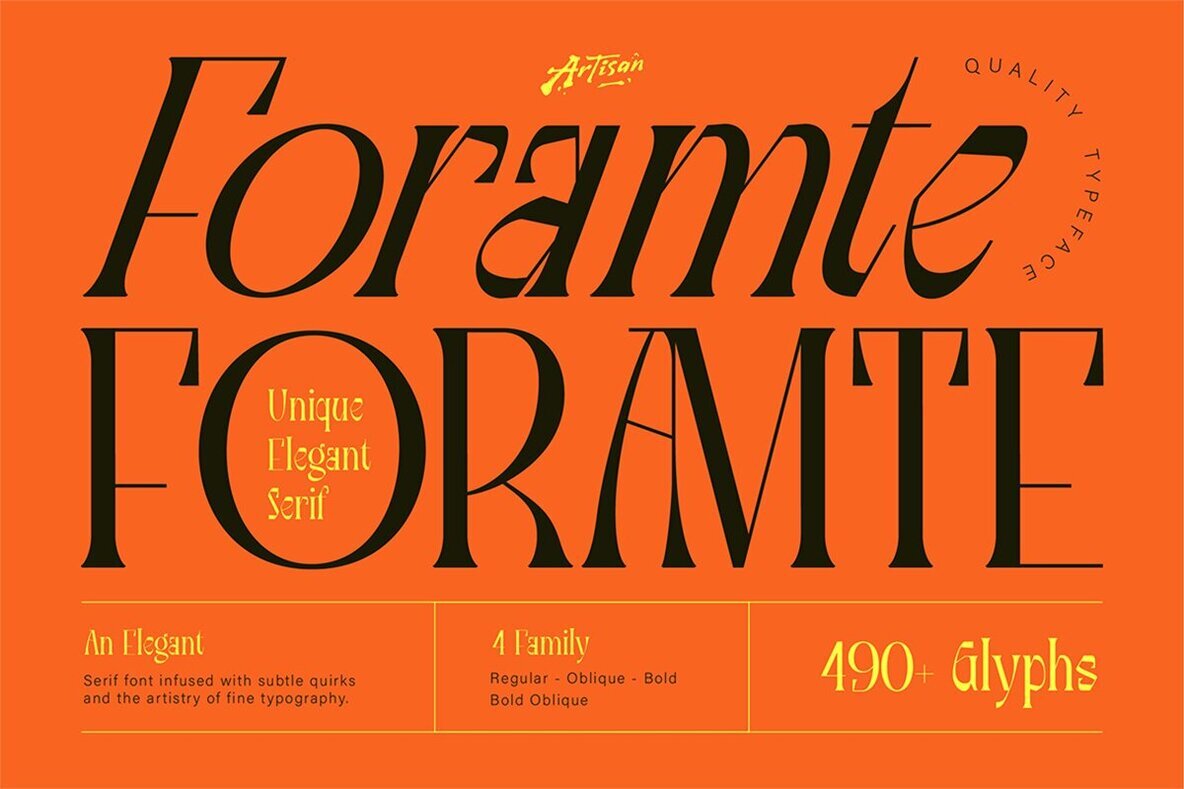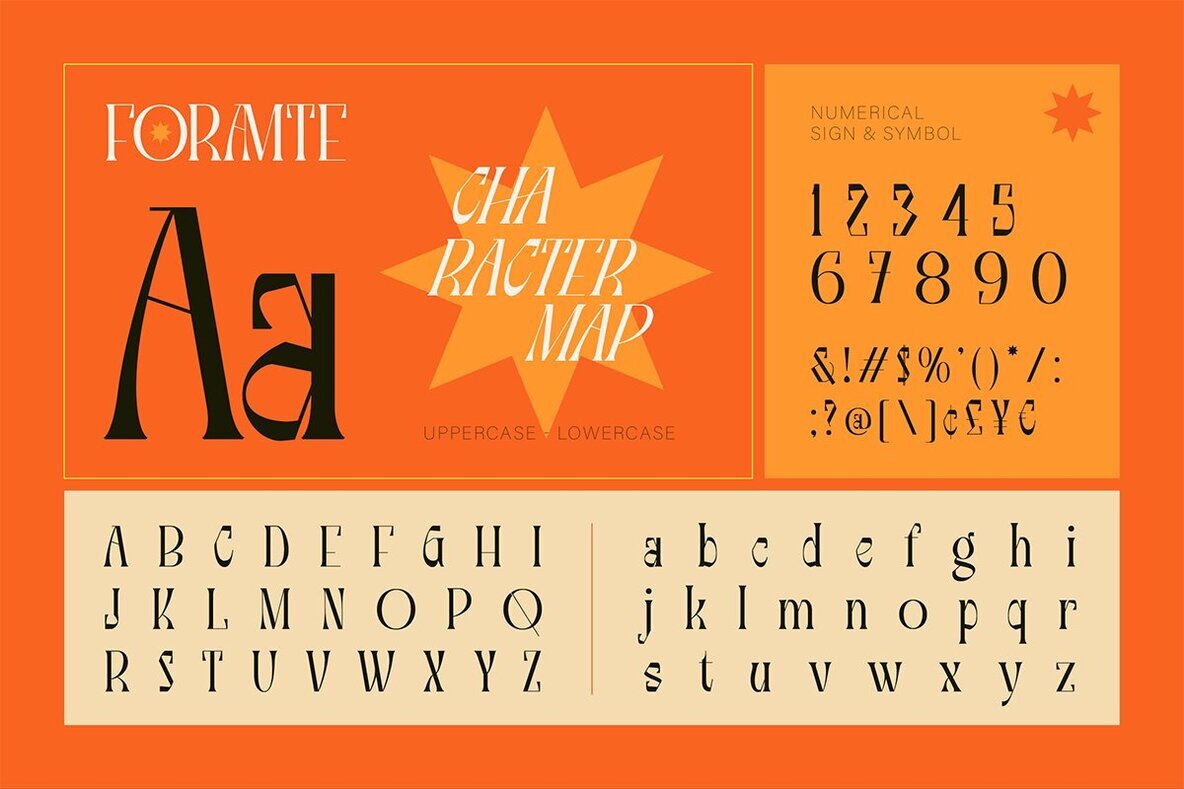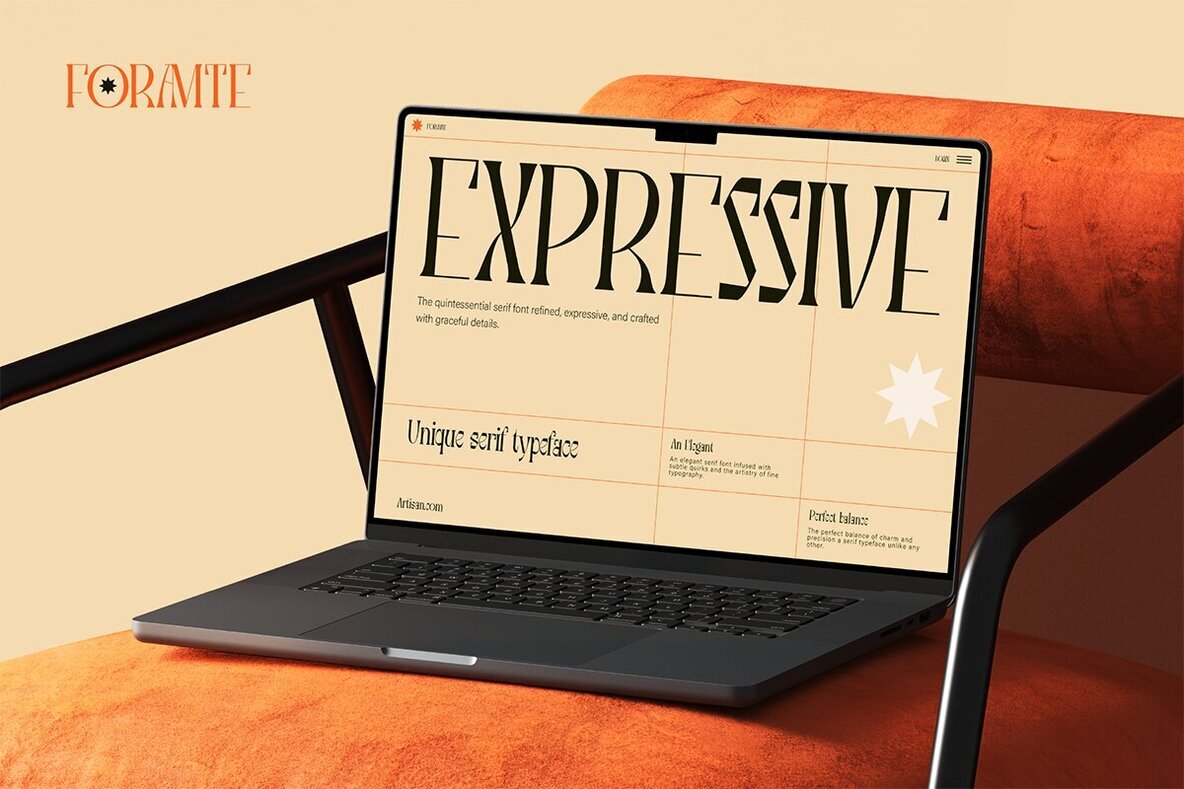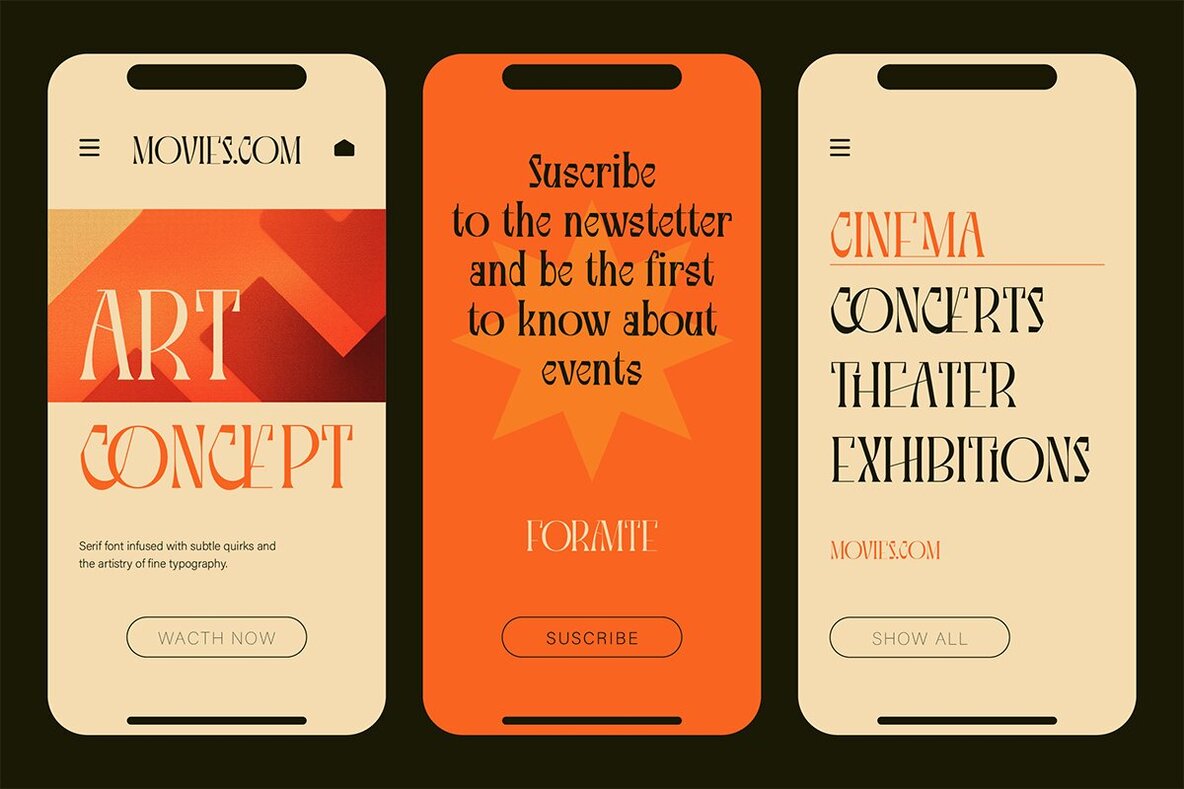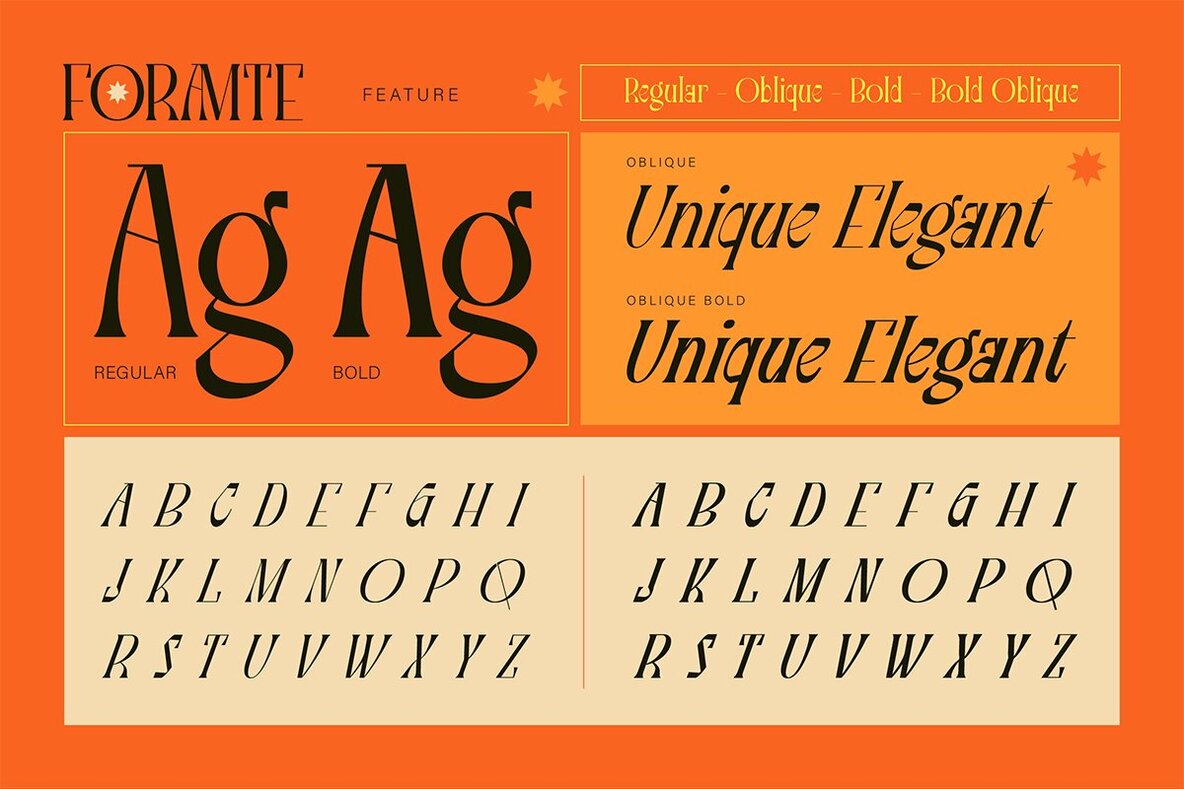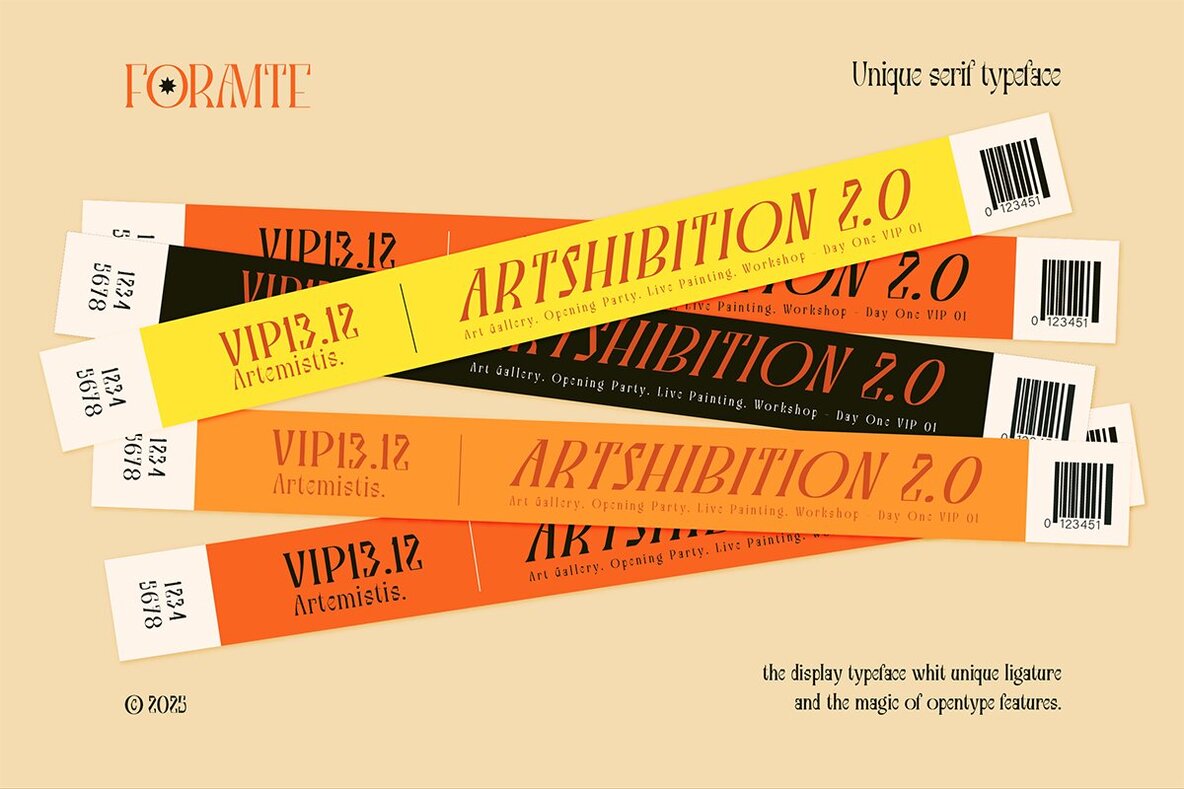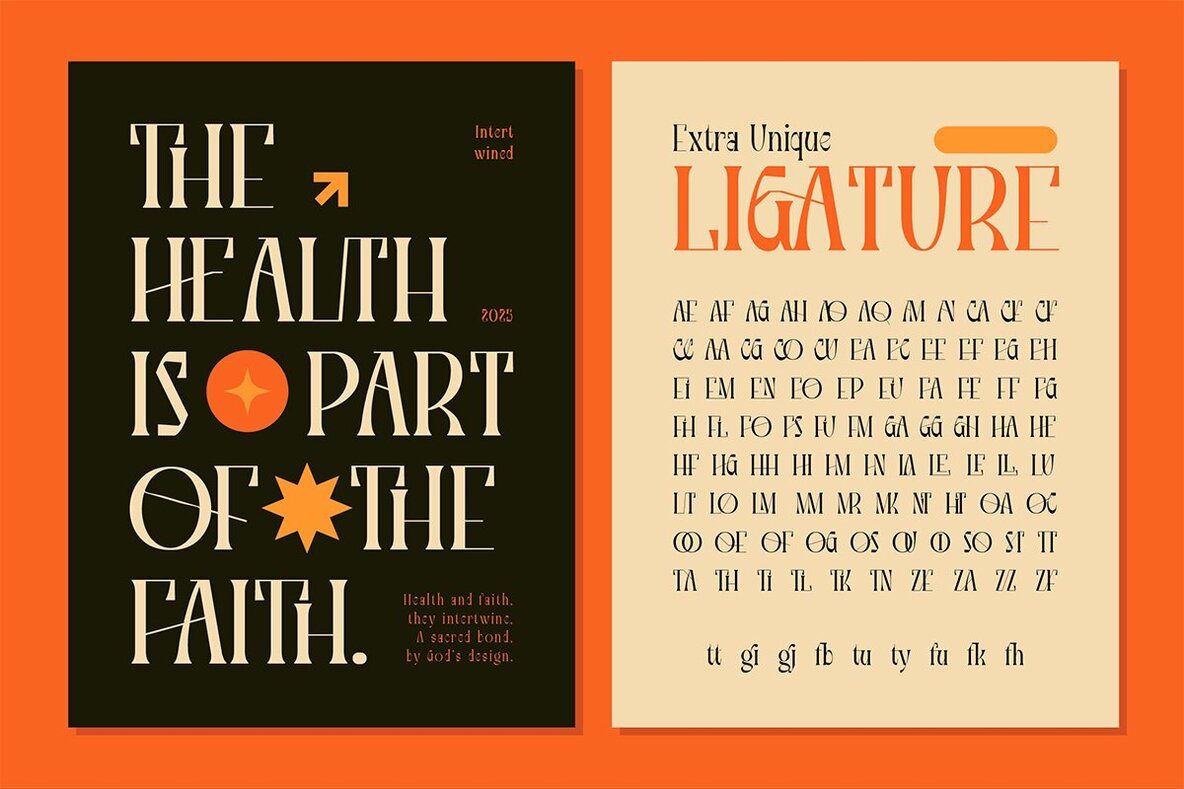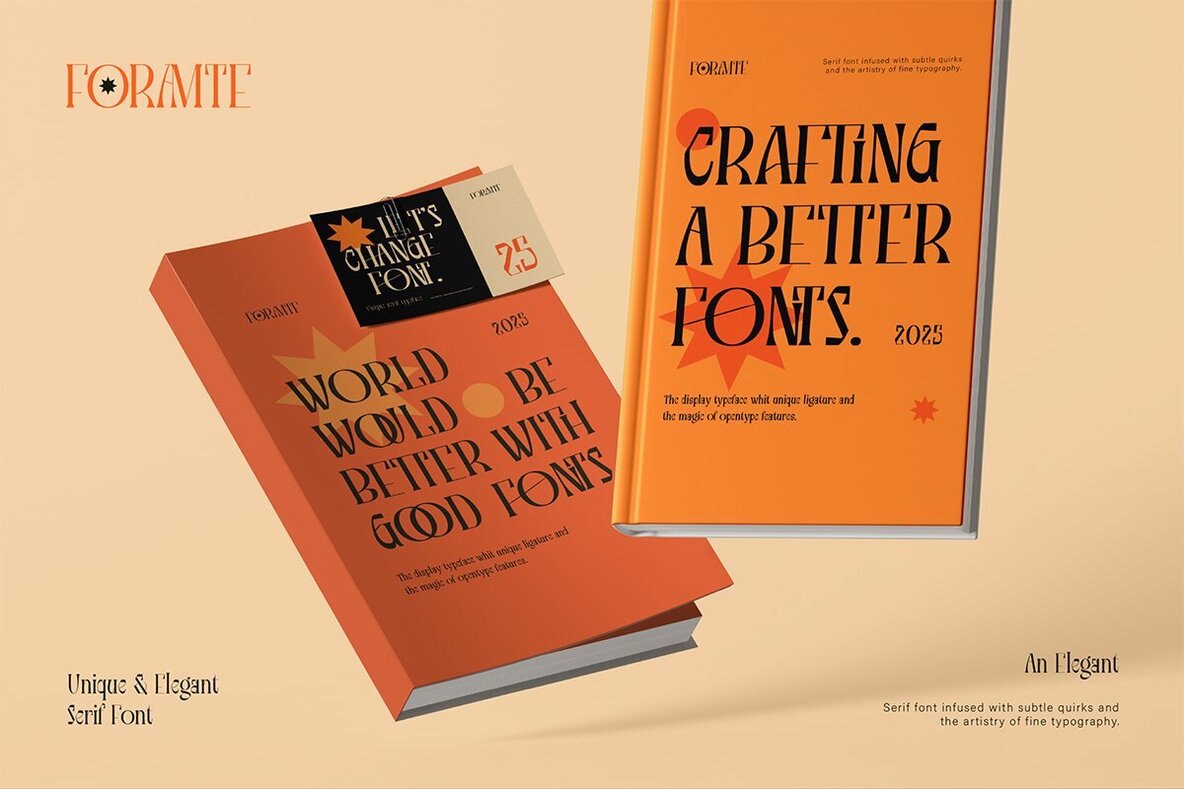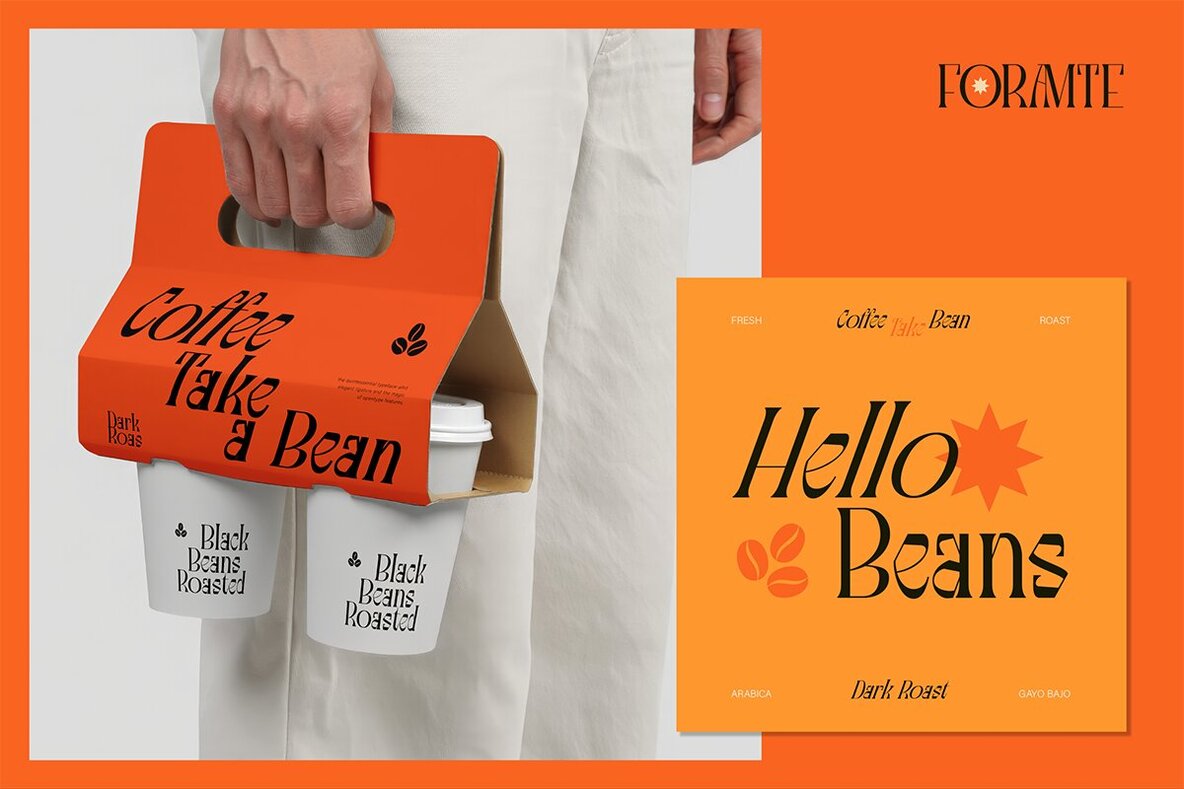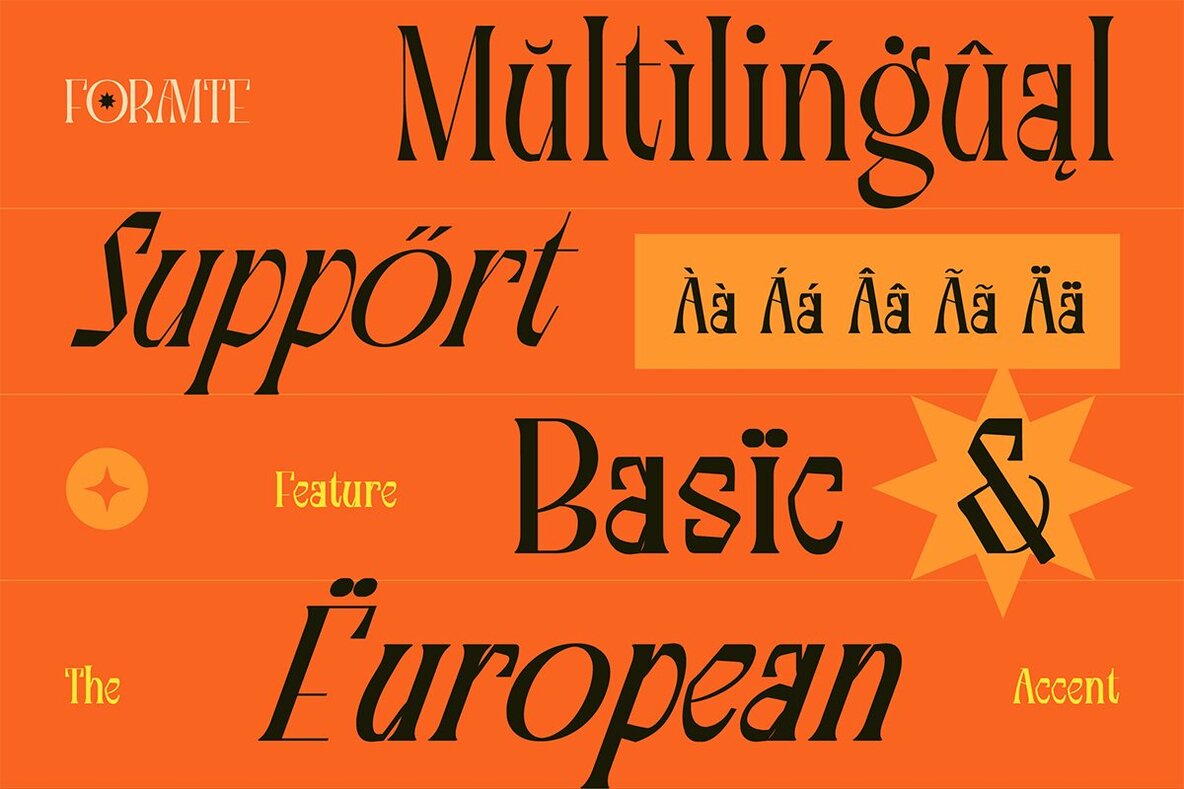
Foramte Font
Foramte presents a distinct serif typeface that intertwines classic elegance with modern expression. Its tall proportions and sculpted curves lend each letterform a purposeful presence. The font’s design sensibility ensures that text remains readable while exuding visual interest, appealing to graphic designers seeking type with both gravitas and style. This family includes four precise styles—Regular, Oblique, Bold, and Bold Oblique—offering versatility for editorial work, branding, packaging, posters, and logotypes. Foramte’s refined features allow it to adapt smoothly to luxury branding or magazine headlines, where subtlety and individuality matter in equal measure.Foramte: Refined Serif with Artistic Character